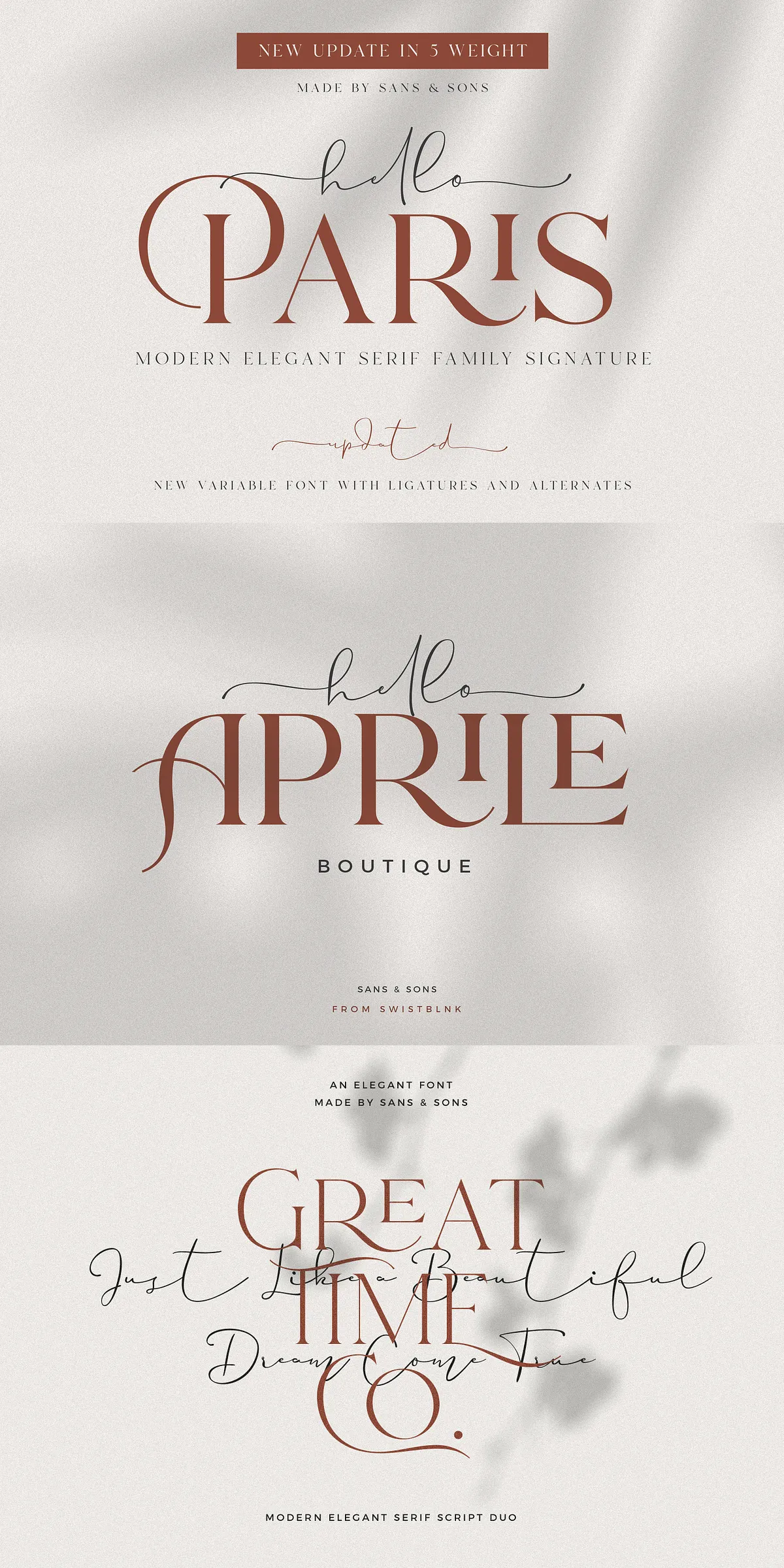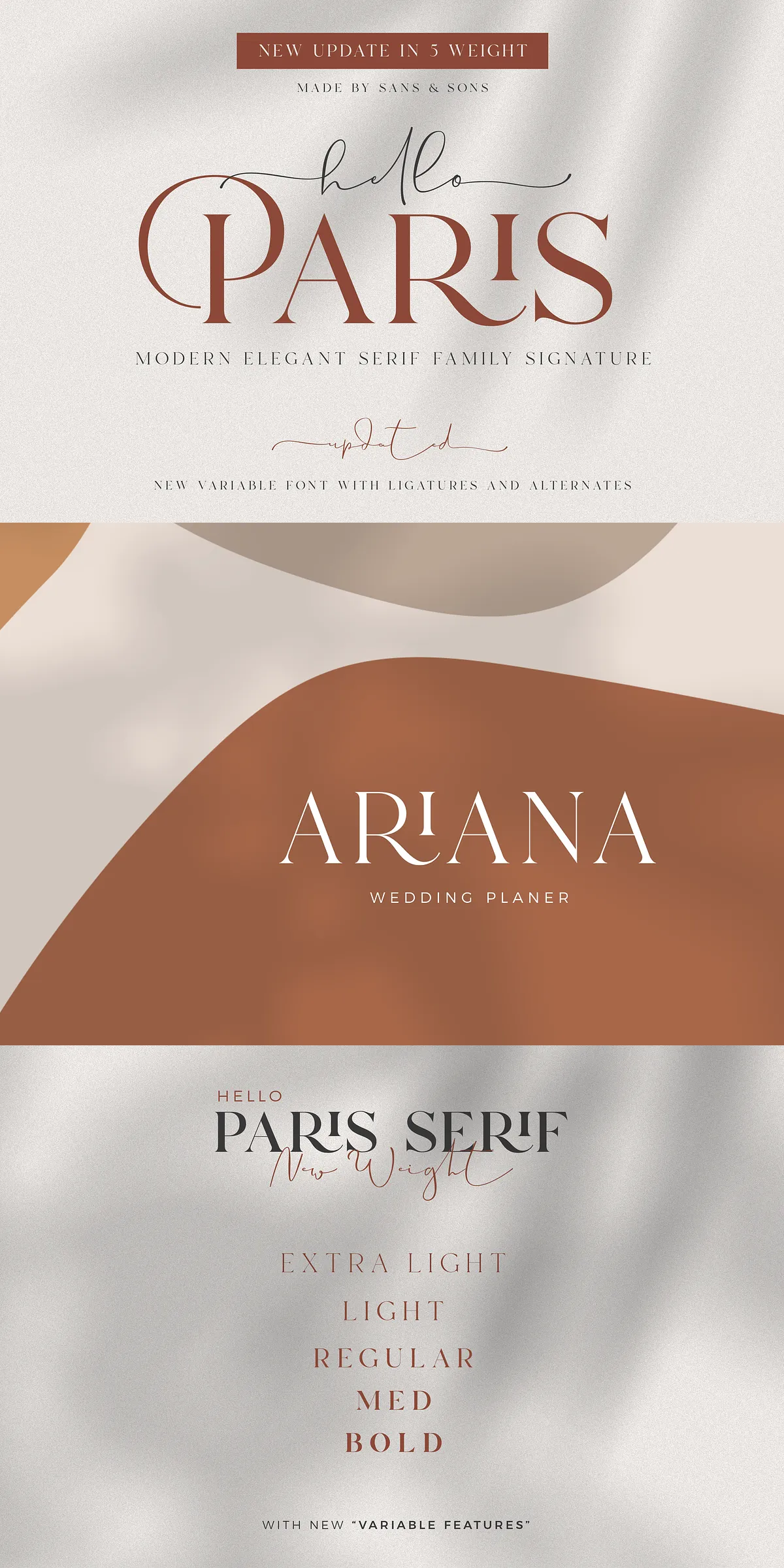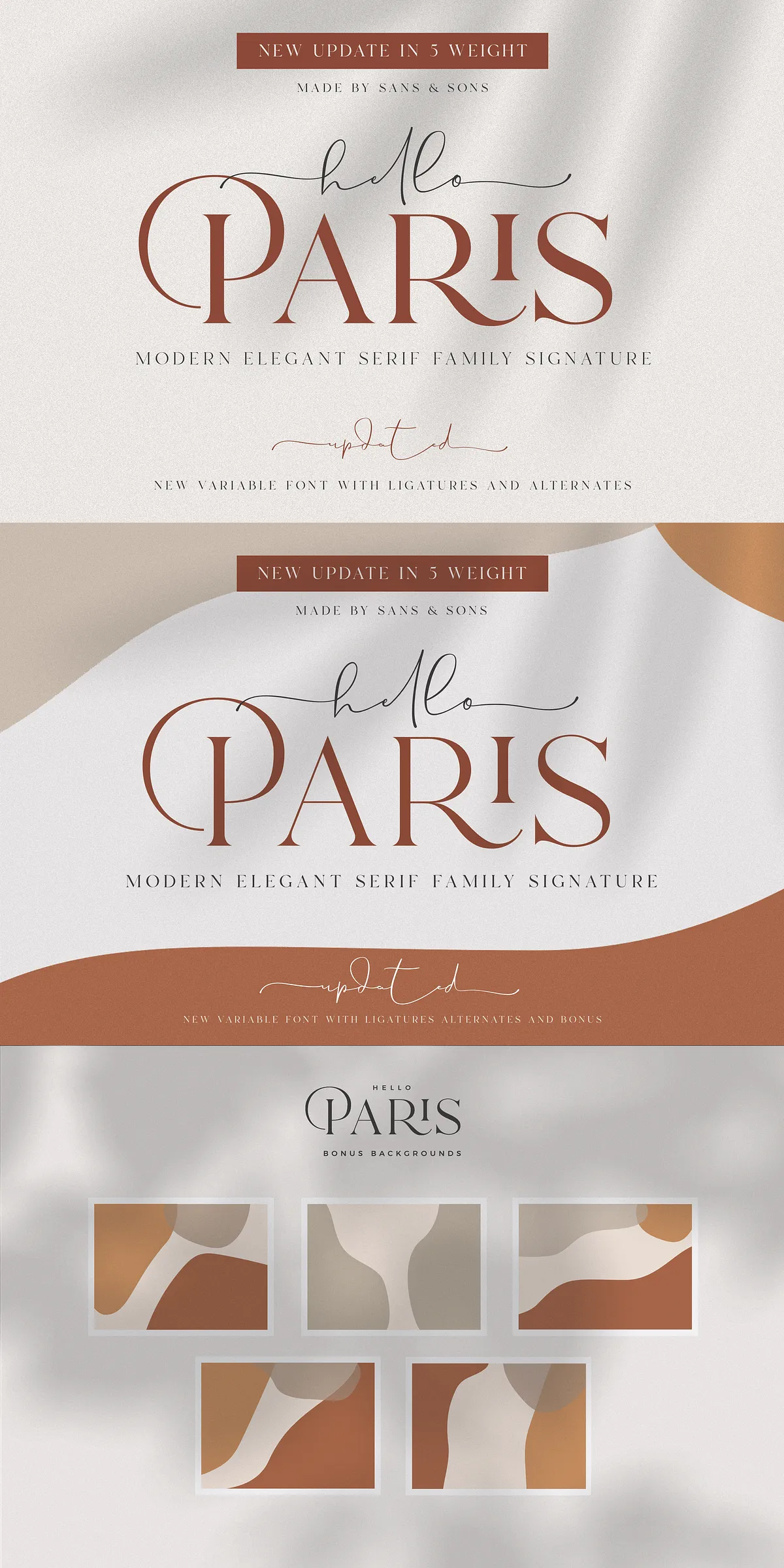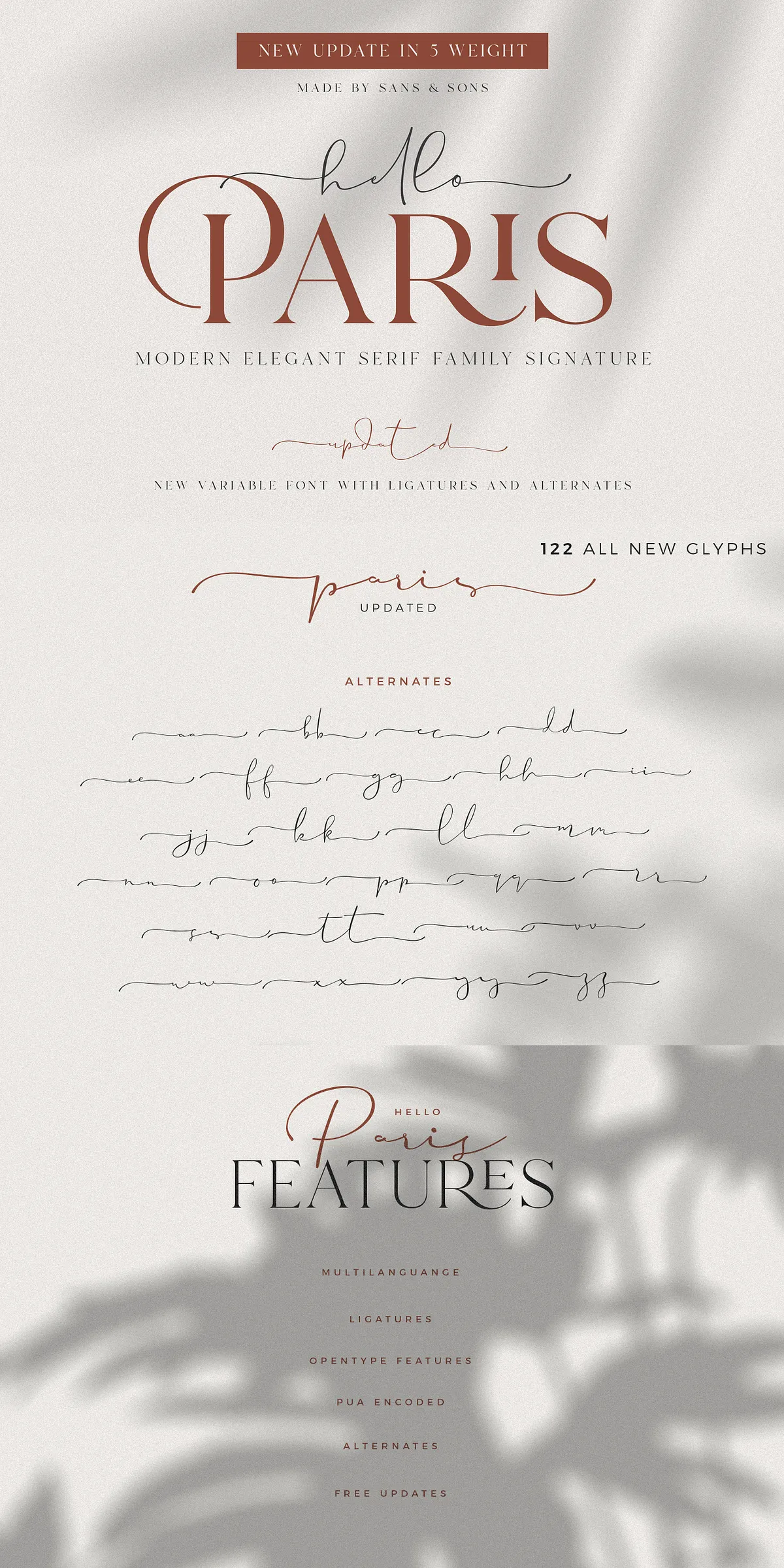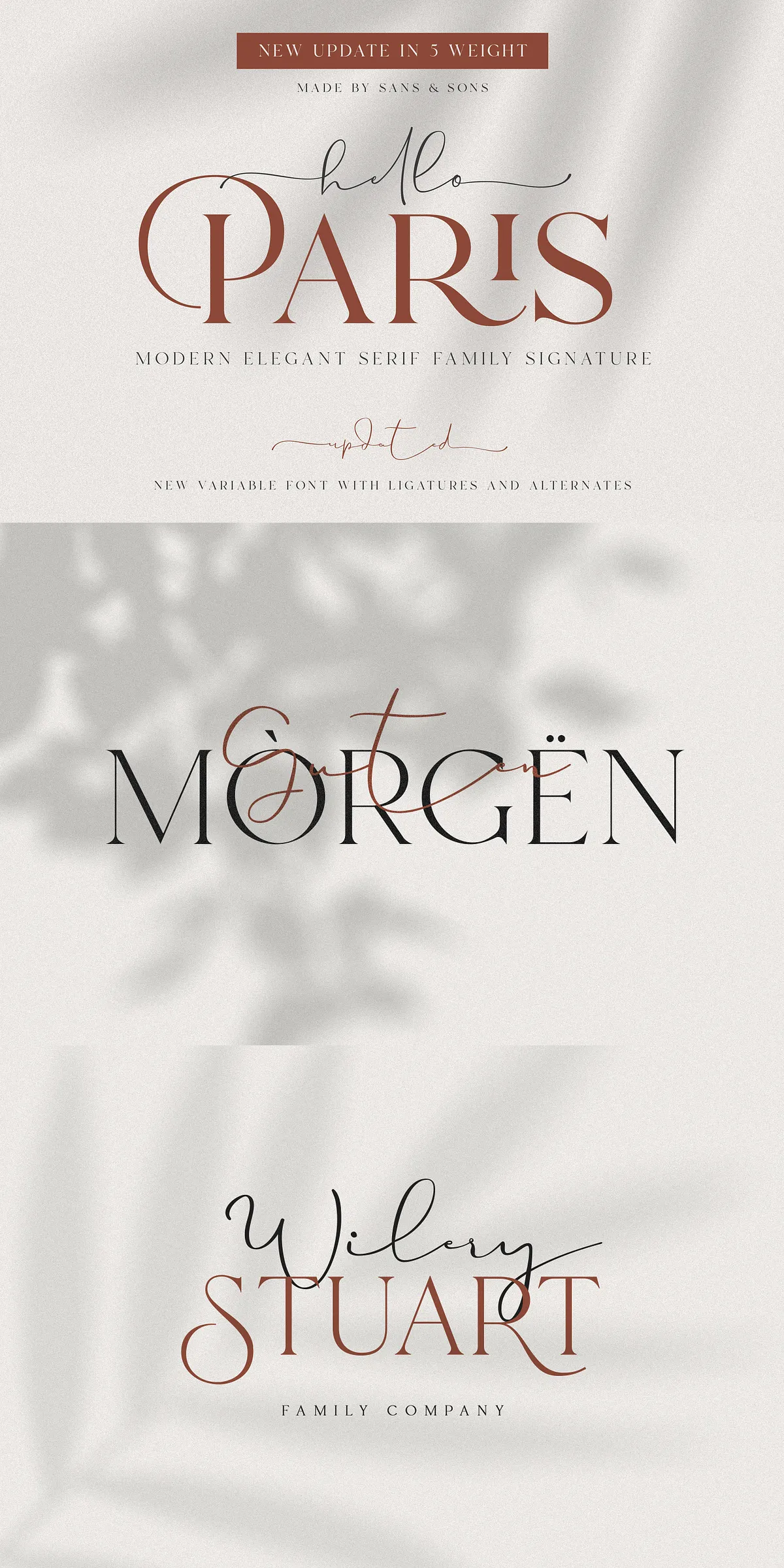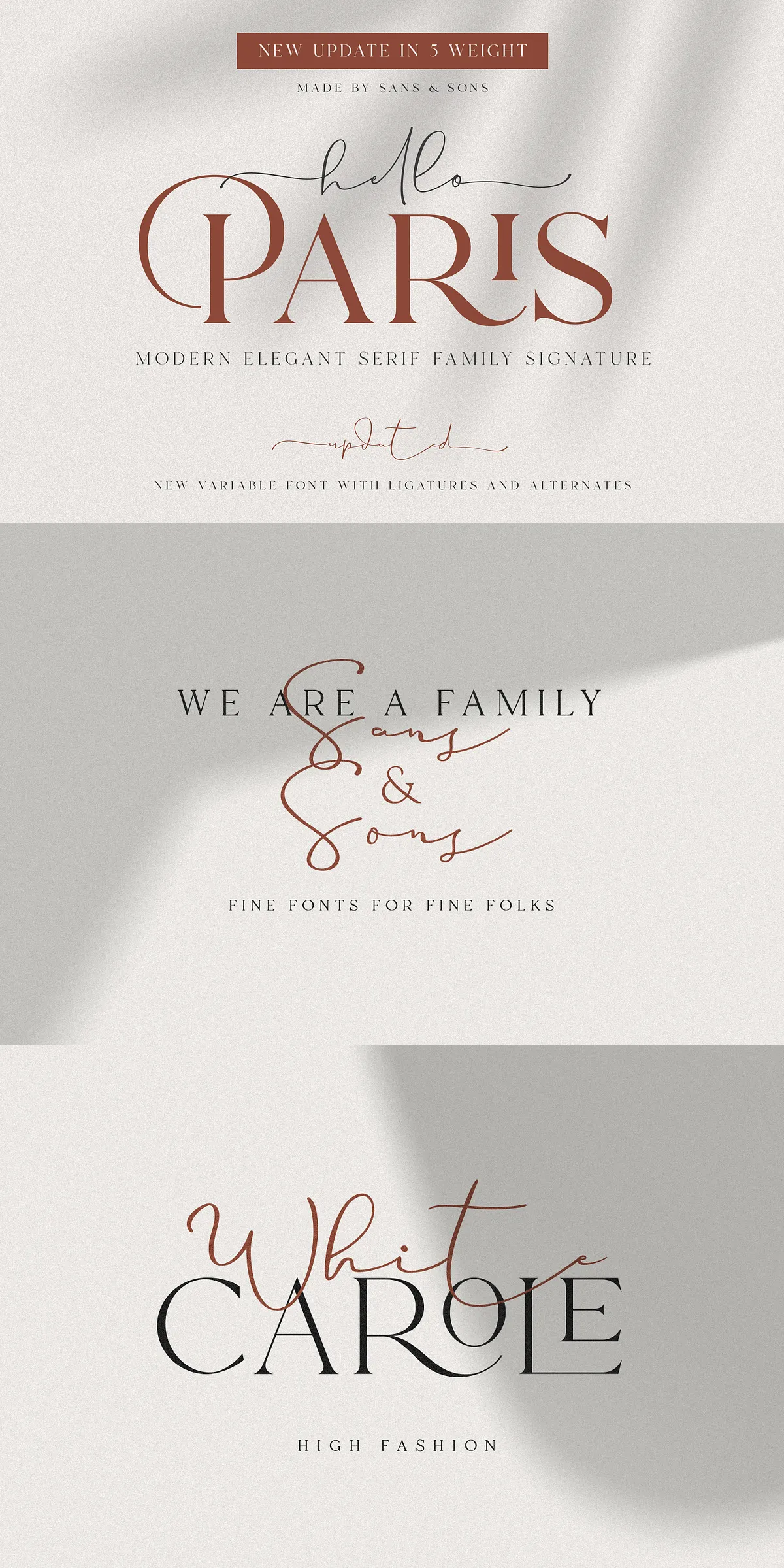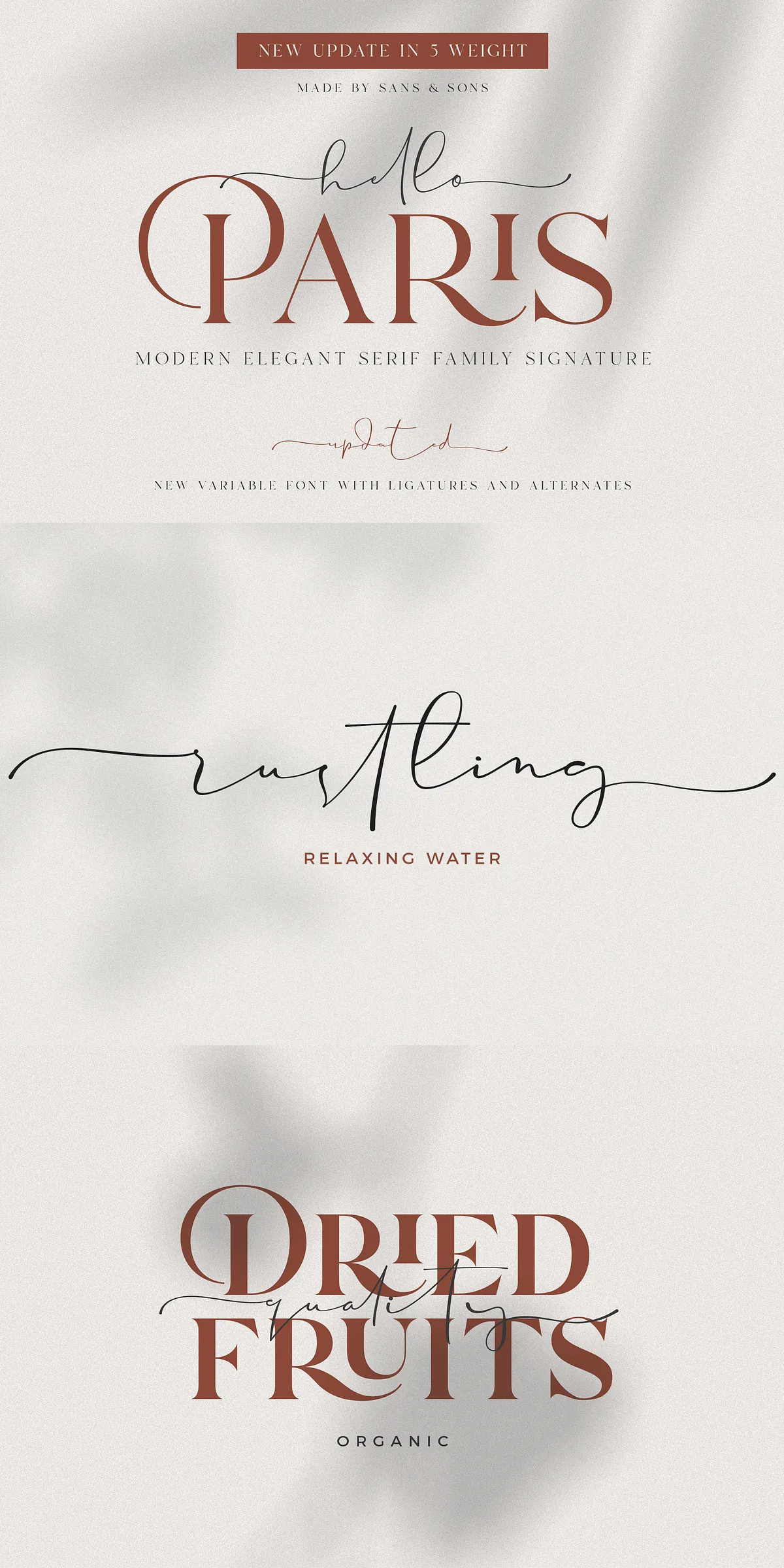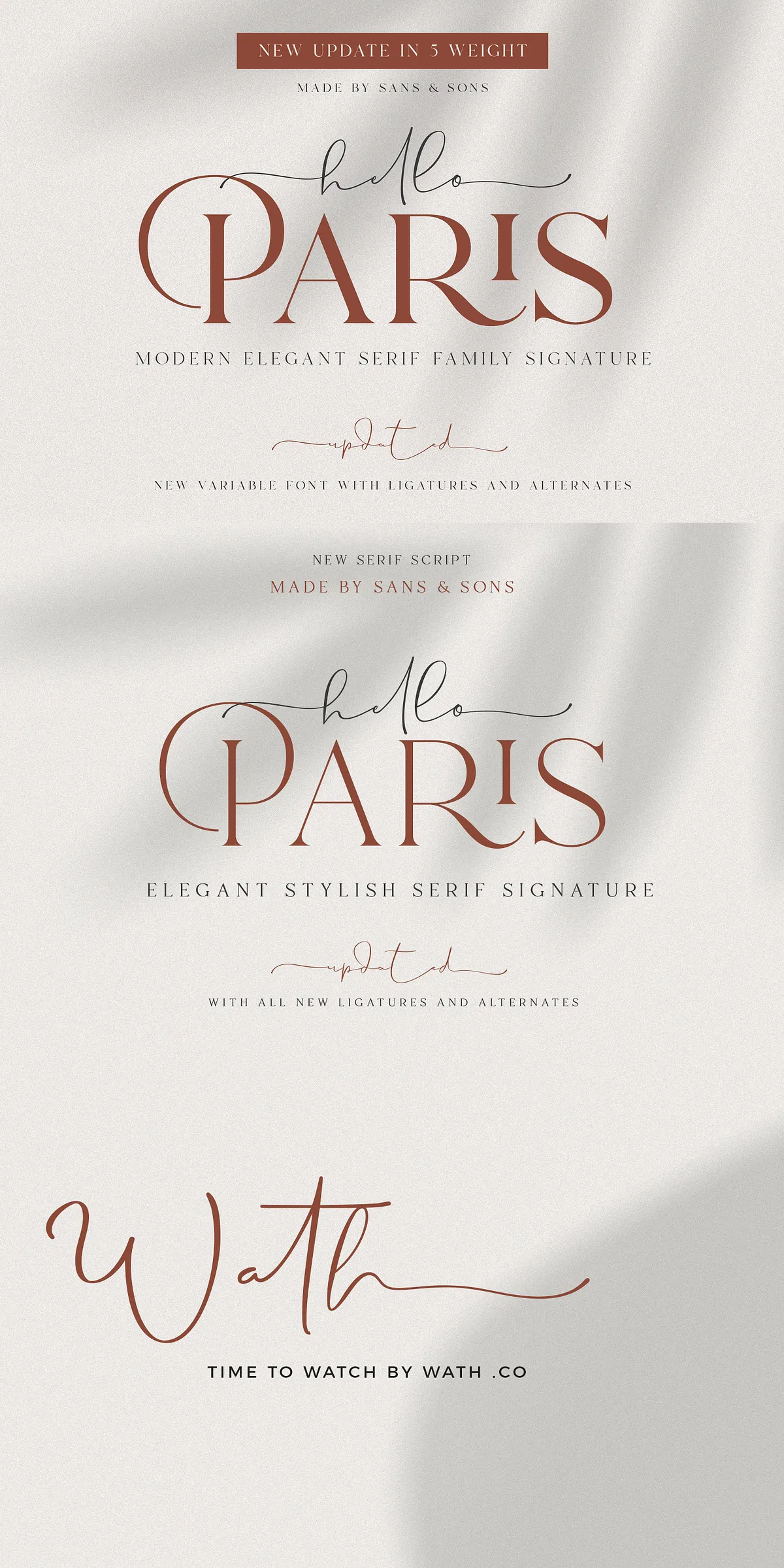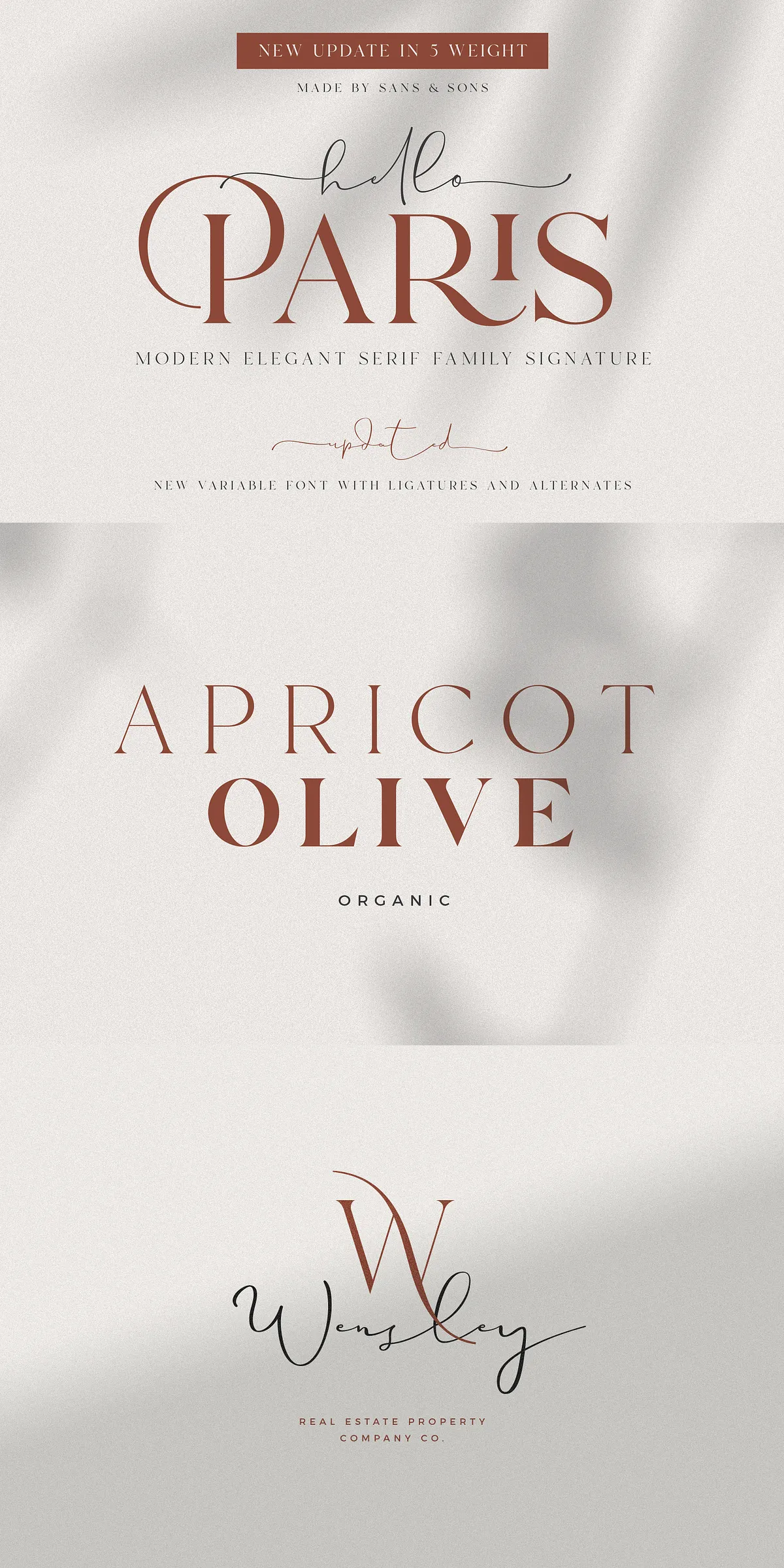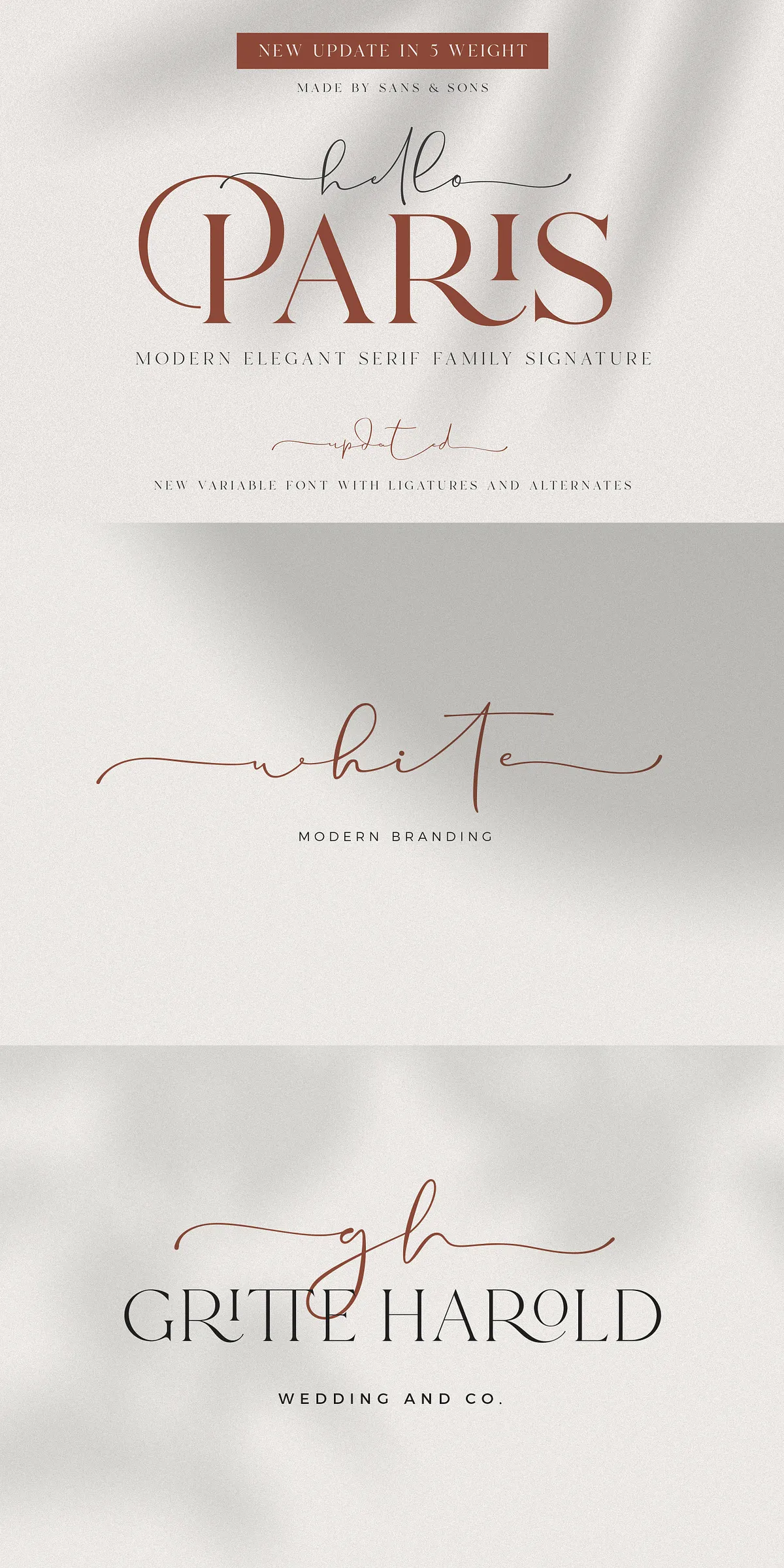
Step into the refined elegance of Parisian sophistication with Hello Paris — our debut font duo that blends modern minimalism with graceful tradition. Designed for creators who demand precision, style, and versatility, this paired font collection is engineered for high-impact branding, luxury invitations, dynamic logos, and premium masterheads. Whether you’re crafting a fashion label, wedding suite, or editorial design, Hello Paris delivers an effortless fusion of structure and soul.
Master the Future with Variable Font Technology
Powerful Type Design Features for Professional Results
Every detail of Hello Paris has been hand-crafted to deliver superior typographic quality and creative freedom.
Complete Character Set & Multilingual Support
Equipped with full multi-language support, the .otf and .ttf files include extended character sets with accented letters, ligatures, and punctuation, ensuring your text remains accurate and professional — even in French, German, Spanish, Italian, and other European languages.
Rich Typographic Toolkit
- 97+ Ligatures for fluid, natural-looking text.
- Stylistic alternates for variation and visual interest.
- PUA-encoded glyphs for expanded access to symbols and special characters.
Unlock Creative Possibilities Across Industries
Whether you’re designing for fashion, hospitality, publishing, or personal branding, Hello Paris adapts with grace and confidence.
Perfect For
- Luxury brand logos & stationery sets
- Wedding invitations & RSVP cards
- Editorial layouts and magazine titles
Designed for Excellence — Trusted by Professionals